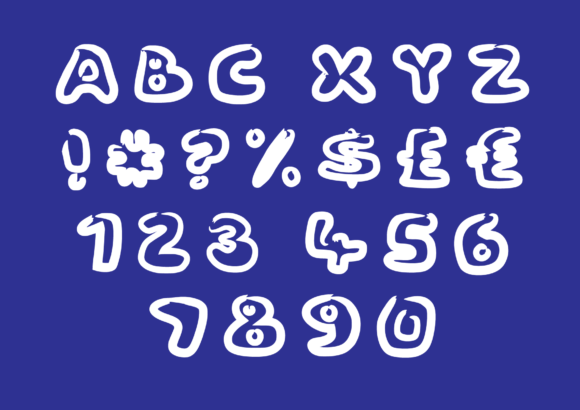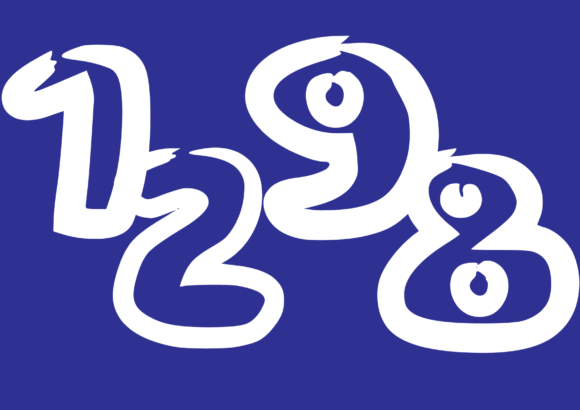
Introduction to Fat Fool Font
You know that feeling when you’re working on a creative project and everything just falls into place? The colors, the textures, the typography – it’s like magic. For designers, that moment is what makes all the hard work worth it. And sometimes, it’s just a matter of finding the right font to tie everything together. That’s where the Fat Fool Font comes in – a casual, bold looking, outlined display font that’s perfect for adding a playful and personalized touch to your designs.
With its high quality design and transparent background, Fat Fool Font is a valuable resource for any creative project. Whether you’re designing a logo, a brochure, or a social media campaign, this font is sure to make your work stand out. And the best part? It’s available for free download, making it an accessible design resource for designers of all levels.
Key Features of Fat Fool Font
- High-quality design resource with a unique, playful style
- Transparent background, ideal for creative projects requiring a clean and minimalist aesthetic
- Supports various languages, making it a versatile design resource
- Perfect for digital and print projects, including logos, graphics, and typography-based designs
Honest Review: Fat Fool Font
I recently stumbled upon the Fat Fool Font and I must say, it’s a great addition to any designer’s toolkit. As a design resource, it offers a unique and quirky feel that can add some much-needed personality to a creative project. The high quality of the font is evident, with crisp lines and clear typography.
One of the standout features of the Fat Fool Font is its transparent background, which makes it easy to customize and pair with other design elements. This flexibility is a major plus for designers who value versatility in their design resources.
- Unique and quirky feel
- High quality typography
⚠️ Limitations:
- May not be suitable for corporate or professional designs
- Some users may find the font too playful or distracting
Overall, I’m impressed with the Fat Fool Font. It’s a fun and creative addition to any design project, and its high quality and transparent background make it a valuable resource for designers. While it may not be suitable for all designs, it’s definitely worth considering for any creative project that needs a little extra personality.
Tips for Getting the Most Out of Fat Fool Font
Experiment with different font sizes and styles to create a visually appealing design. Use the font in combination with other design elements, such as images and graphics, to create a unique and eye-catching visual effect.
The Fat Fool Font is perfect for creative projects, such as posters, social media graphics, and business cards. It’s also great for adding a playful touch to presentations, reports, and other business documents.